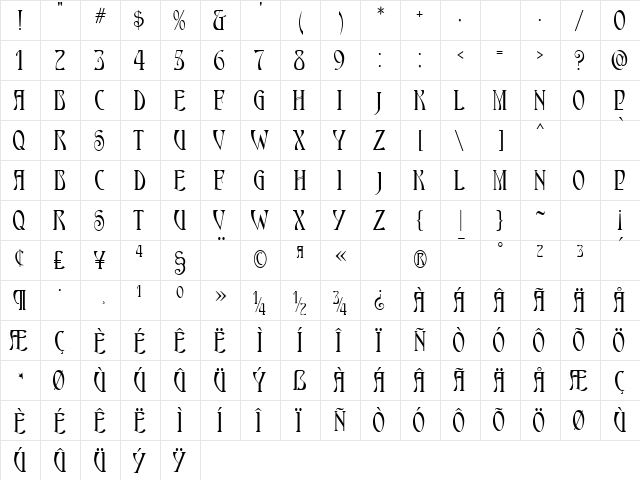
Ambrosia MF Regular
Design Context for Ambrosia MF Typeface
Ambrosia MF is a composed and adaptable typeface that performs quietly and consistently across a wide range of design contexts.